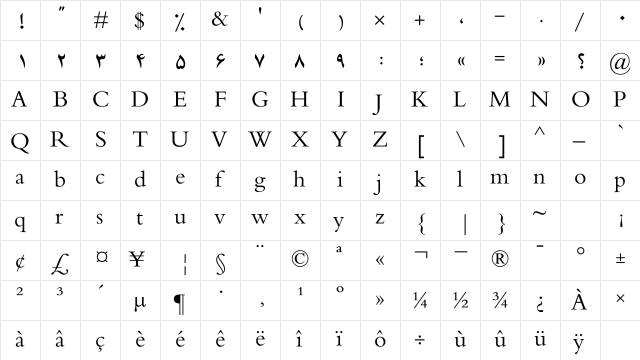
Badr Bold
Design Context for Badr Typeface
Badr is a composed and adaptable typeface that performs quietly and consistently across a wide range of design contexts. Its bold stroke weight gives it real presence on the page.